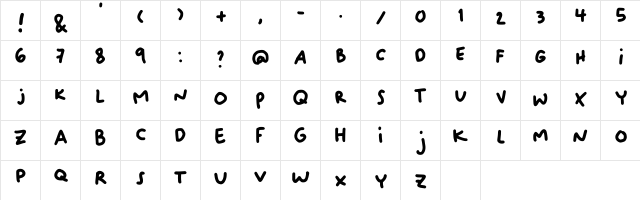
Oliver Regular
Design Context for Oliver Typeface
Oliver takes a measured approach to typography — its balanced proportions and neutral character make it a reliable workhorse for both digital and print work.